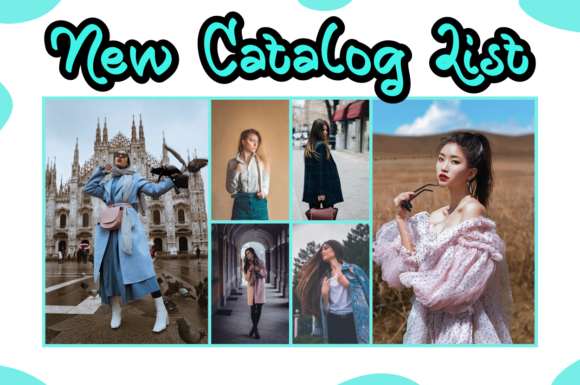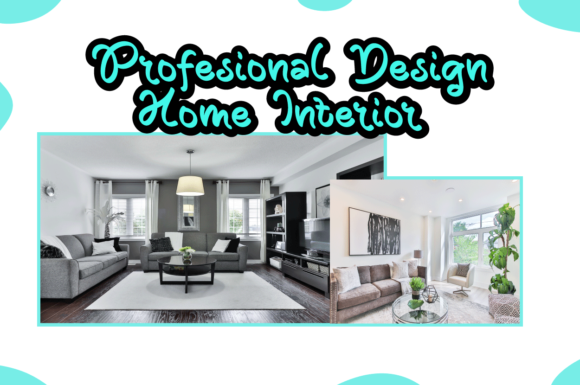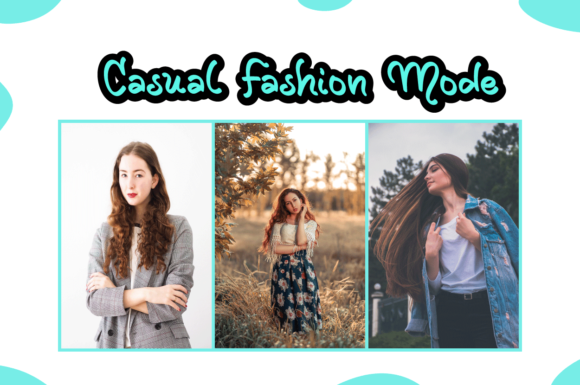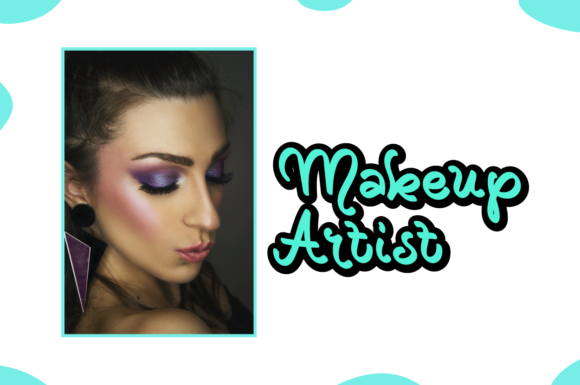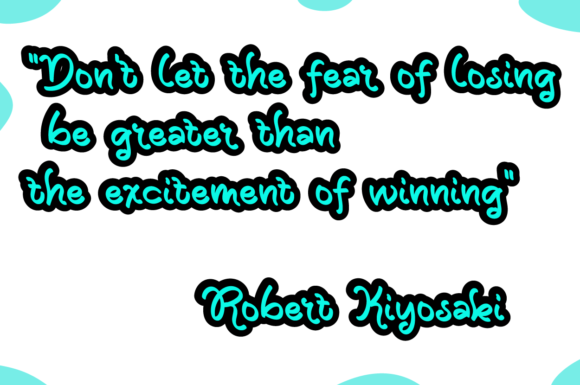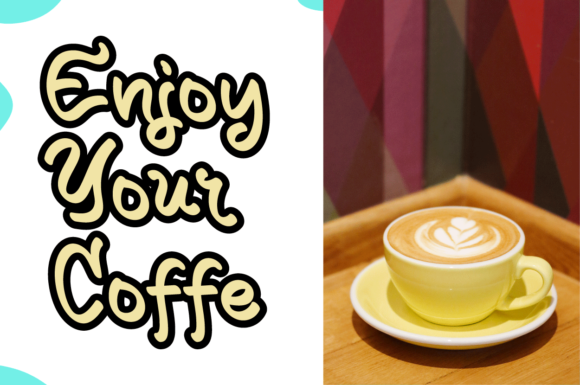
Pink Monster Font – Free Download
Introduction to Pink Monster Font
Pink Monster is a quirky and very interesting handwritten font.
Its friendly feel makes this font incredibly versatile, fitting a wide range of contexts It looks stunning on thank you cards, quotes, greeting cards, logos, business cards, and more.
Key Features of Pink Monster Font
Why Choose Pink Monster Font?
Pink Monster Font offers exceptional quality and versatility, making it a valuable addition to your design toolkit. Whether you’re creating for personal projects or commercial use, Pink Monster Font delivers professional results.